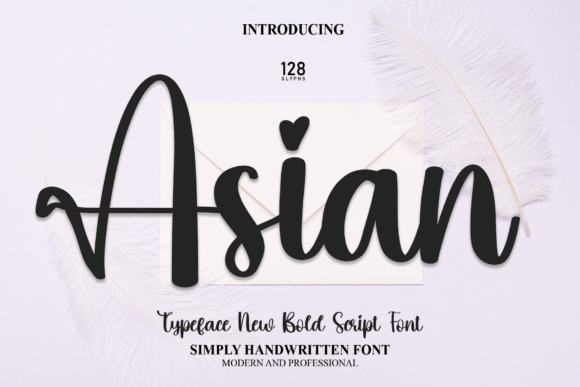
Dive into the captivating world of Asian Font, the mesmerizing script font family that adds a touch of elegance and charm to your creative endeavors. Specially designed by the talented andikastudio, Asian Font is an irresistible symphony of flowing curves and graceful lines, making it the perfect choice for adding a personal touch to your projects.
With its meticulous attention to detail and sophisticated design, Asian Font transforms ordinary words into captivating works of art. Its delicate strokes and subtle variations in thickness create a sense of movement and energy, drawing the eye and capturing the imagination. Whether you're designing a wedding invitation, crafting a social media post, or creating a stunning product label, Asian Font adds an undeniable allure that sets your work apart.
Explore the boundless possibilities of Asian Font and let your creativity soar. Its versatile style lends itself to a wide range of applications, from heartfelt wall displays to eye-catching advertisements. Create personalized stationery that speaks volumes about your unique personality or design product packaging that commands attention on store shelves. With Asian Font, the possibilities are endless.
Unlock the true potential of Asian Font and witness the transformation of your creative projects. Its ability to elevate ordinary designs into extraordinary masterpieces makes it an indispensable tool for any designer or artist seeking to leave a lasting impression. Embrace the beauty of Asian Font today and unlock a world of artistic possibilities.